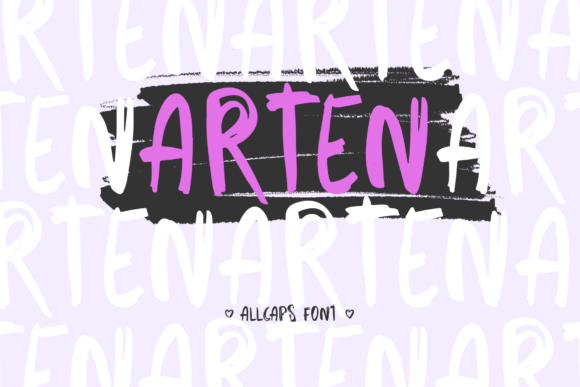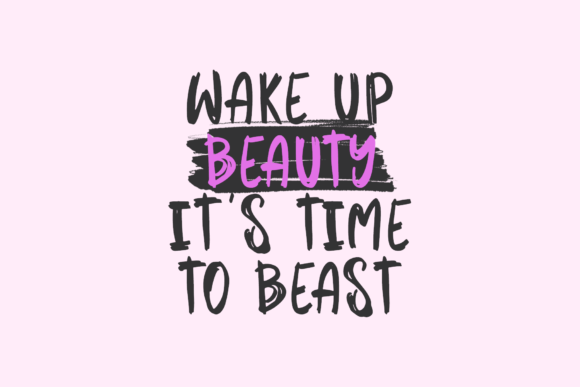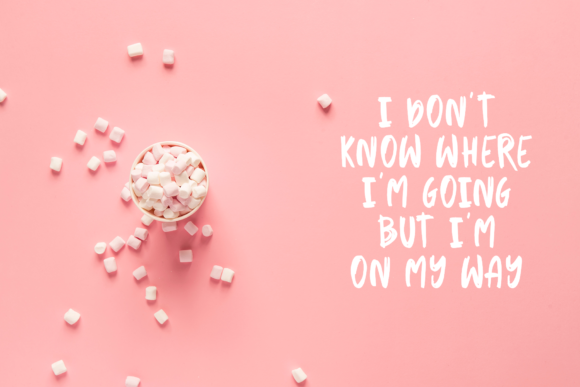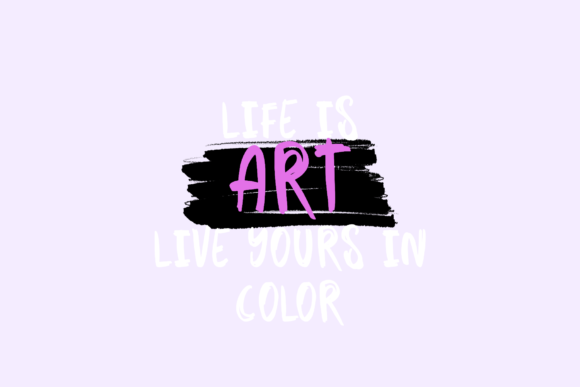
HomeScript FontsArten Font Script Fonts Arten Font FacebookXPinterestWhatsApp Arten Font Poster 2 Arten Font Poster 3 Arten Font Poster 4 About Arten Font Arten is a unique and powerful script font that will add an authentic and urban edge to any design project. DOWNLOAD ON CREATIVE FABRICAThis font is sold and delivered by Creative Fabrica. Font Canyon may earn a commission if you buy through this link. People also explored Vinky Font Valentine Signature Font Bad Kitty Font Valeyola Script Font Alejandro Font Oval Candy Font Enlova Font Lambresia Font Ferishley Sunshine 314 0 TagsArten Font Previous articleStarting FontNext articleMoonlight Whispers Font LEAVE A REPLY Cancel reply Comment: Please enter your comment! Name:* Please enter your name here Email:* You have entered an incorrect email address! Please enter your email address here Website: Save my name, email, and website in this browser for the next time I comment. Personal Use Free Haris Wood Personal Use Free Read more about this font No Virus Personal Use Free Read more about this font Concre Personal Use Free Read more about this font Baveuse Personal Use Free Read more about this font BLOG Elegant Wedding Invitation Fonts – Handwritten & Script Fonts Elegant Wedding Invitation Fonts Your wedding day is one of the most important moments of your life, and every detail matters—including your invitation design. Our... To increase your work productivity, choose the most readable fonts. Using Fonts in Digital Marketing: Tips to Strengthen Your Brand Identity Top 10 Handwritten Fonts That Elevate Your Designs